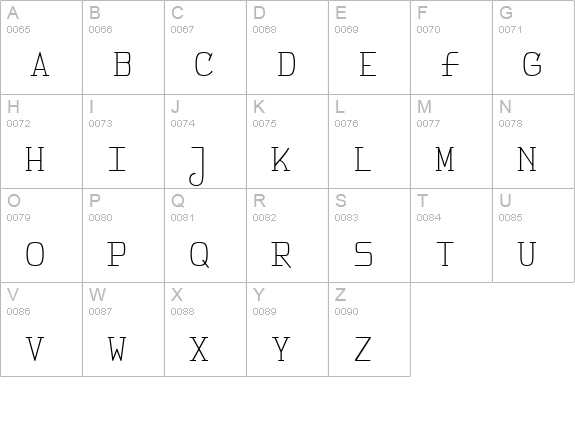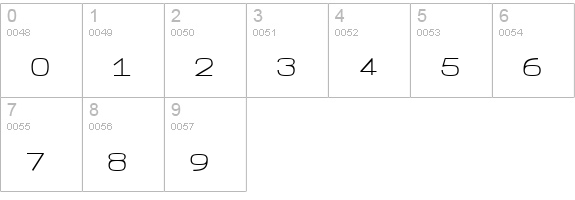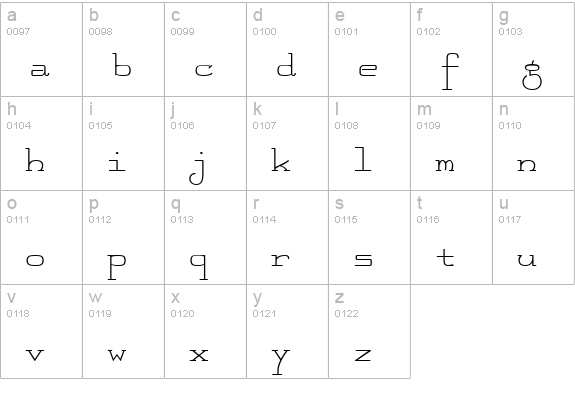
FeggoliteMono Plain Font Details
Introducing FeggoliteMono Plain font - a sleek and modern typeface designed for a wide range of design projects. This font features clean lines and a contemporary aesthetic, making it perfect for branding, editorial design, and more. With its elegant simplicity, FeggoliteMono Plain adds a touch of sophistication to any project. What's more, FeggoliteMono Plain is available for free download at FontsMarket.com. This means you can easily incorporate this stylish font into your designs without any cost. Don't miss out on the opportunity to enhance your projects with the versatile and eye-catching FeggoliteMono Plain font. Download it today and elevate your design game!